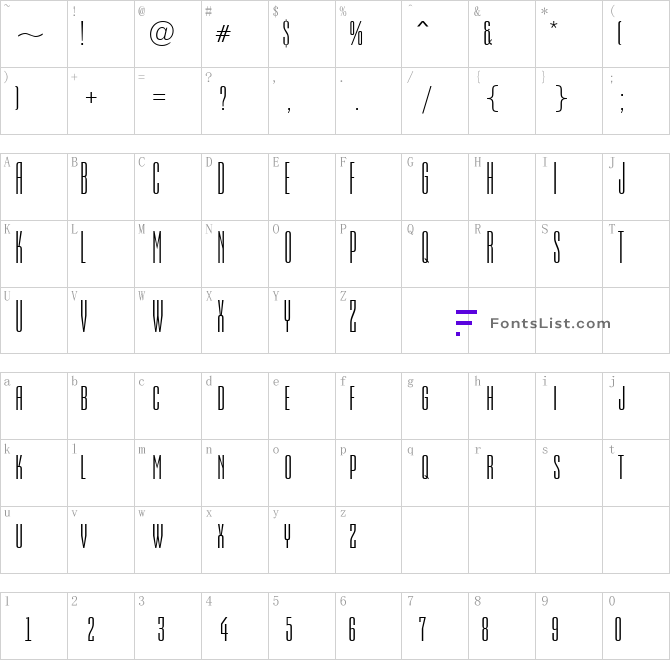
- Font Name:a_EmpirialCpsTtr
a_EmpirialCpsTtr.ttf is a very beautiful artistic font, a_EmpirialCpsTtr.ttf is widely used in the design and printing of various books and pictures,a_EmpirialCpsTtr.ttf has a strong visual impact,a_EmpirialCpsTtr.ttf is a commonly used font in newspapers, magazines and books, and is used in posters, e-commerce Poster design, store design, logo design, font design and other fields.a_EmpirialCpsTtr.